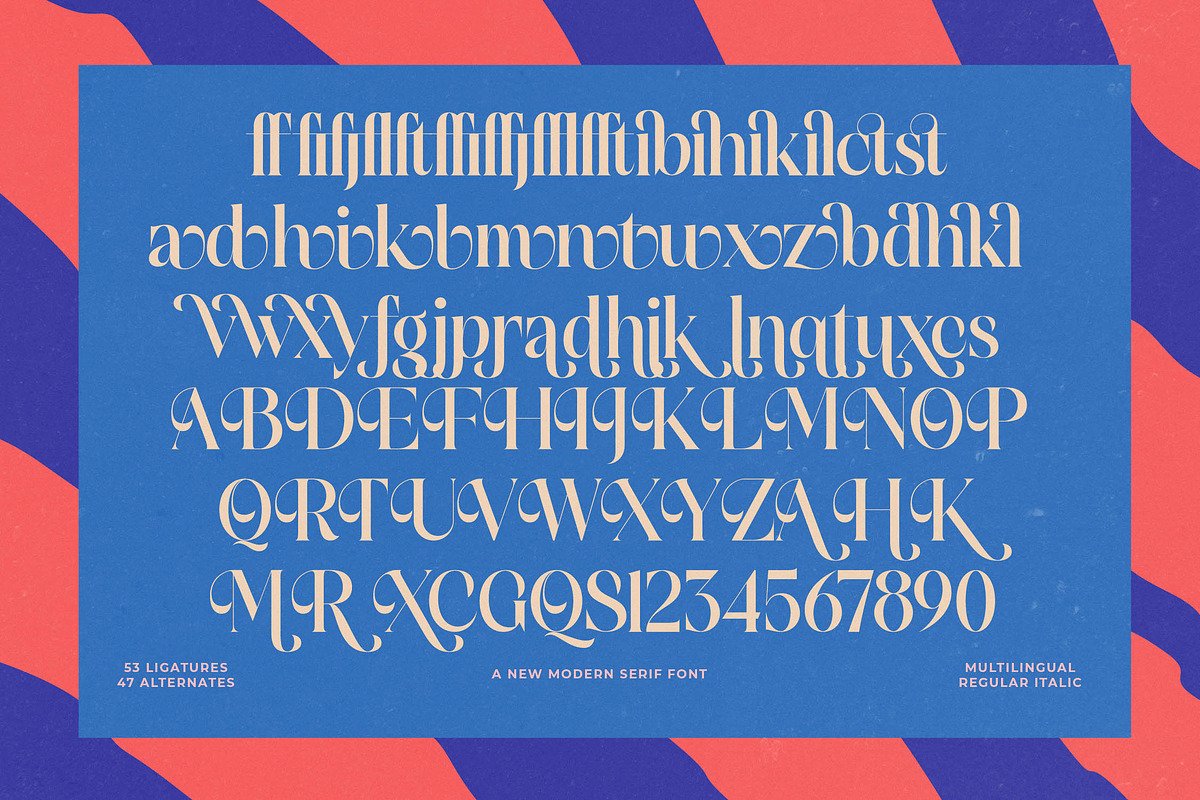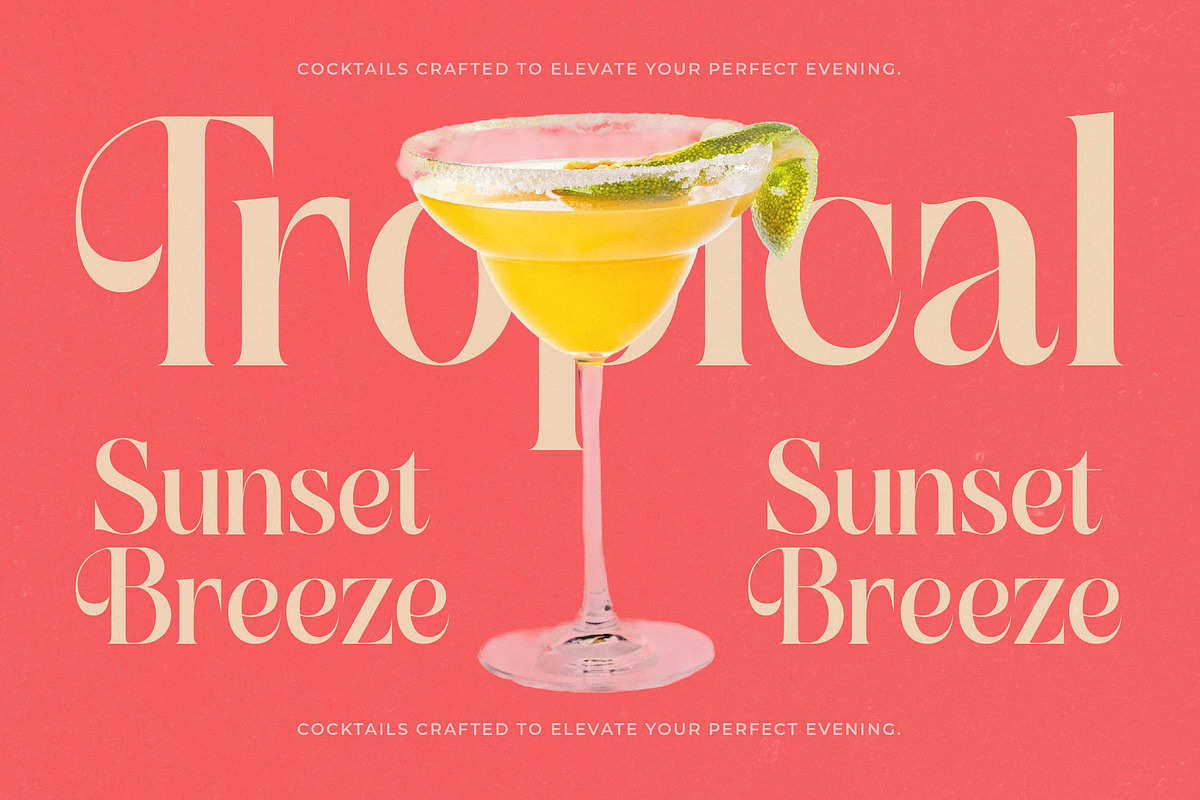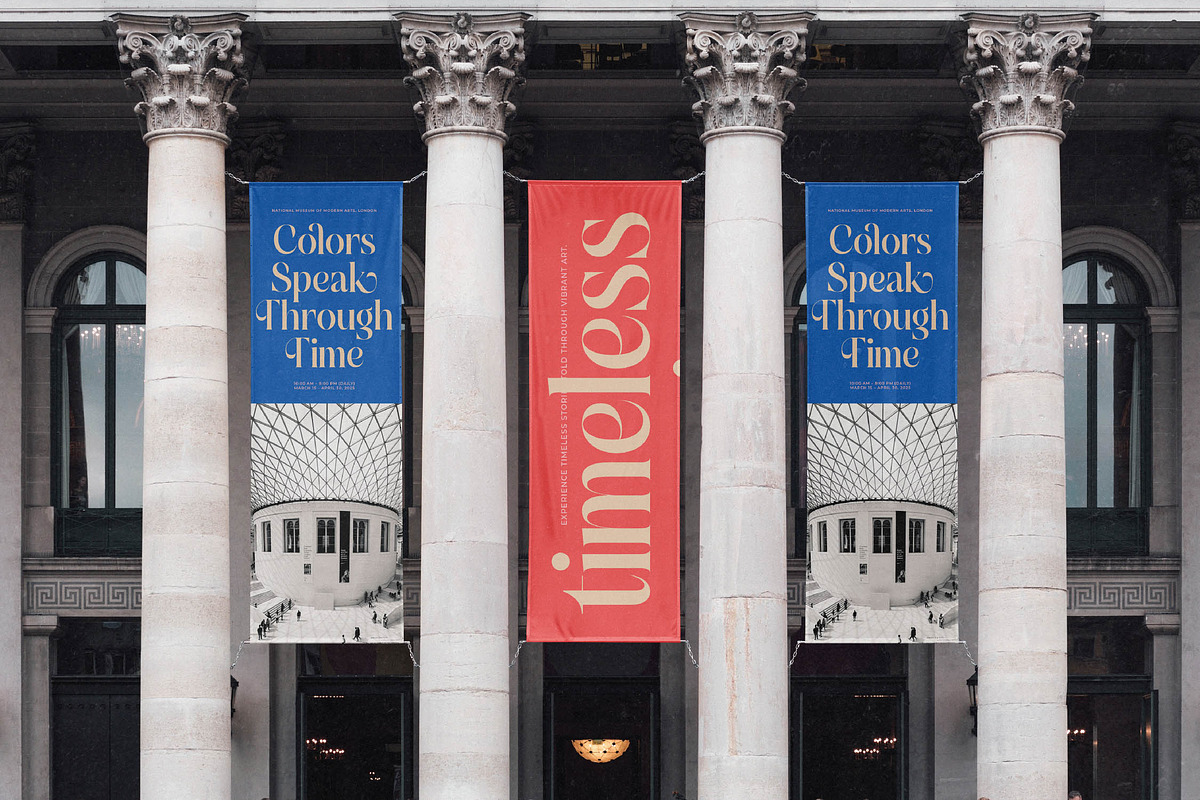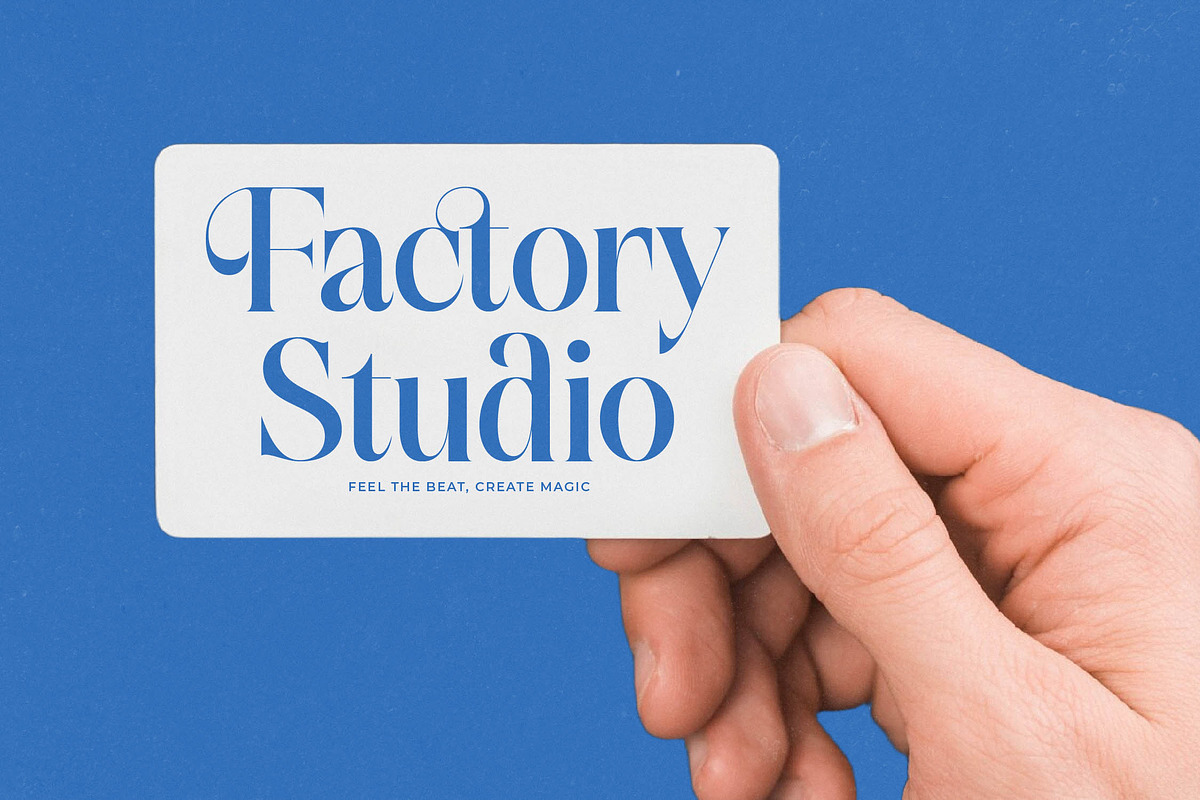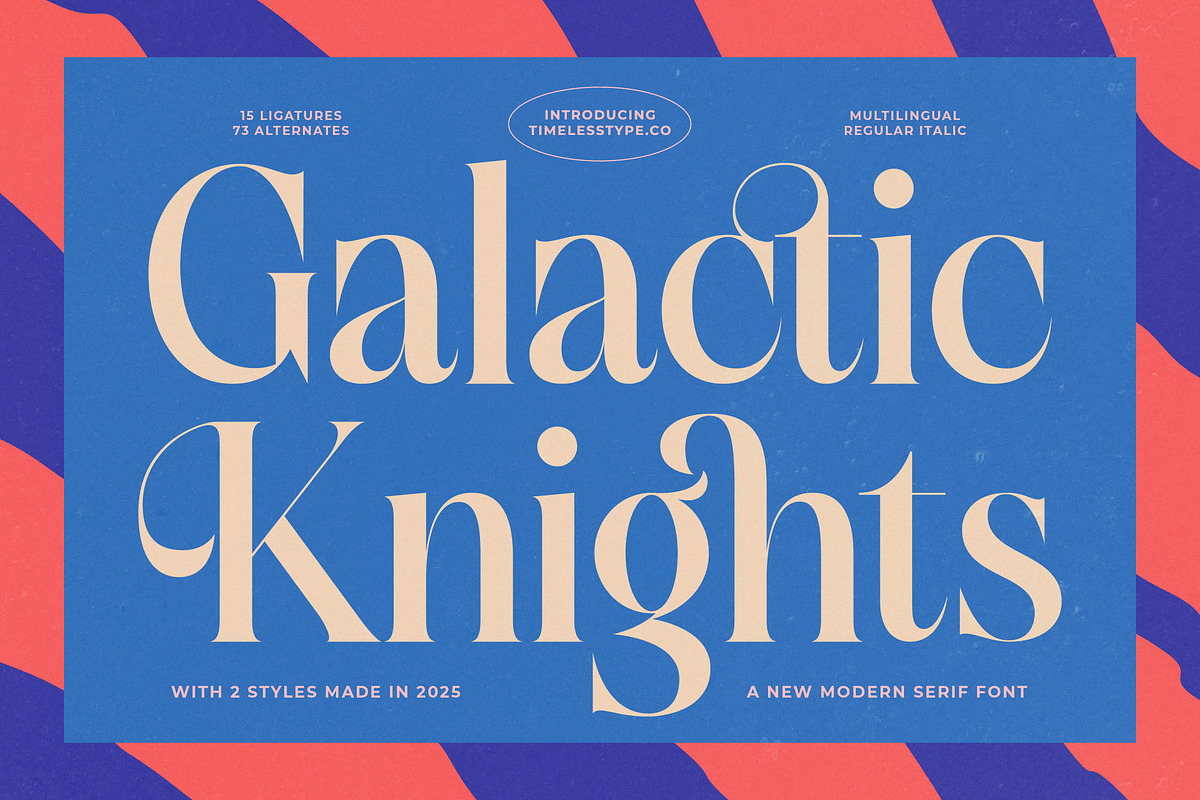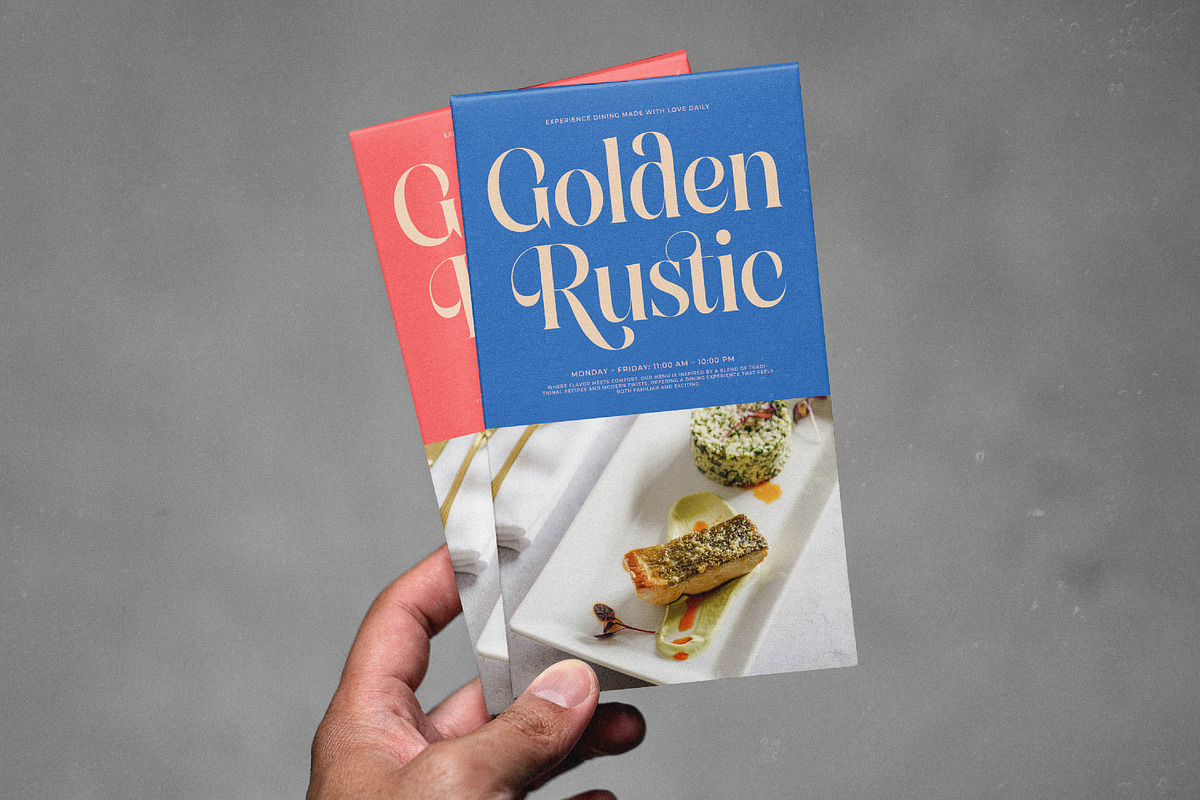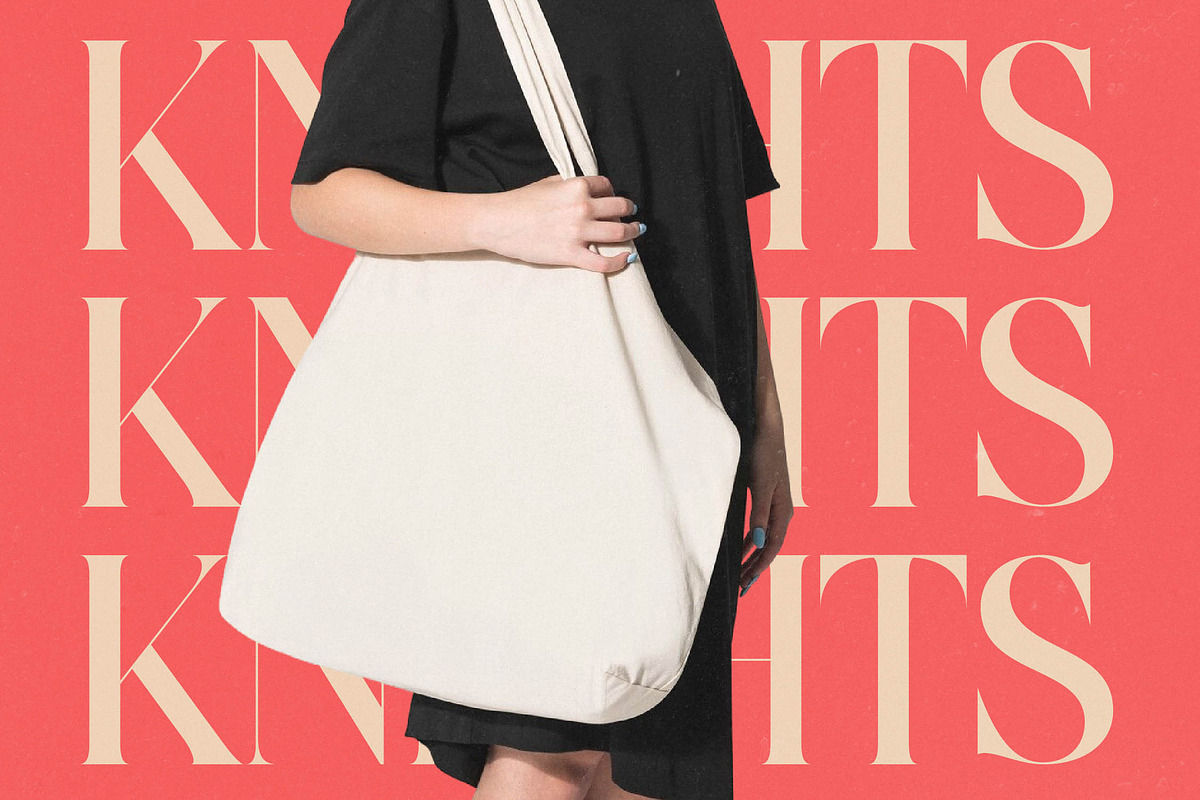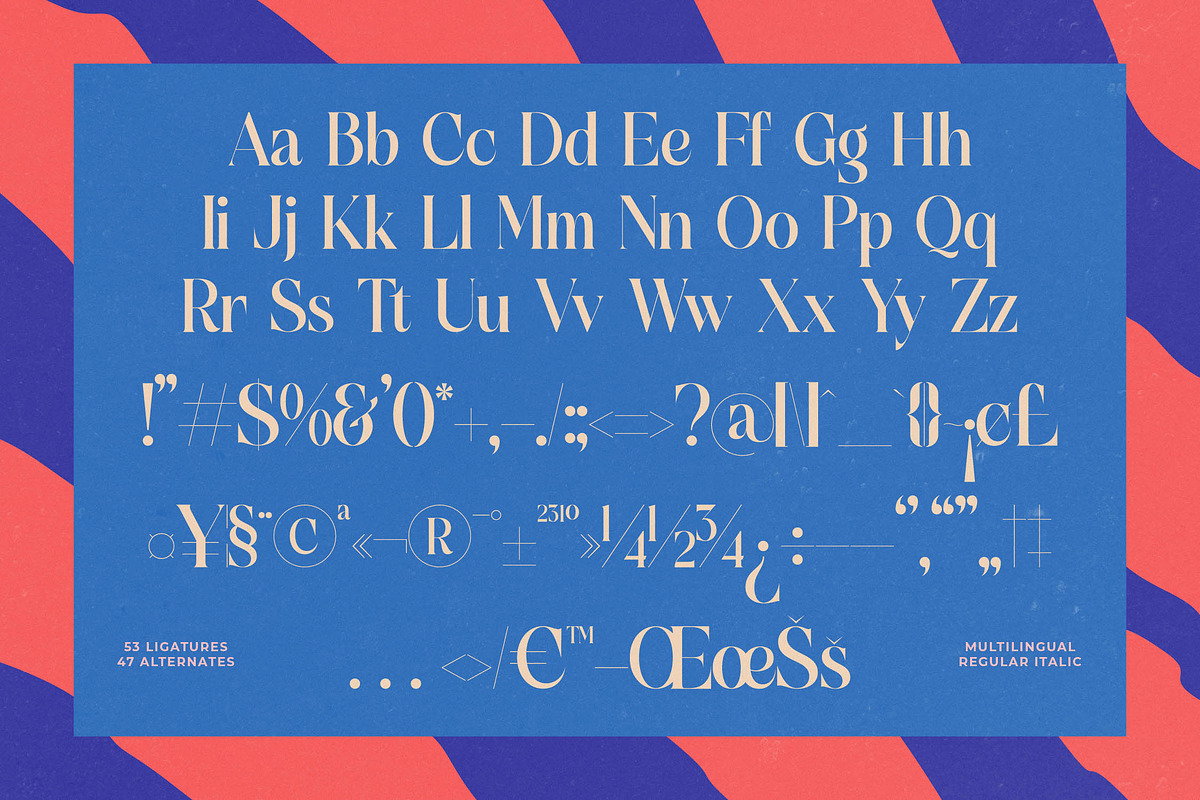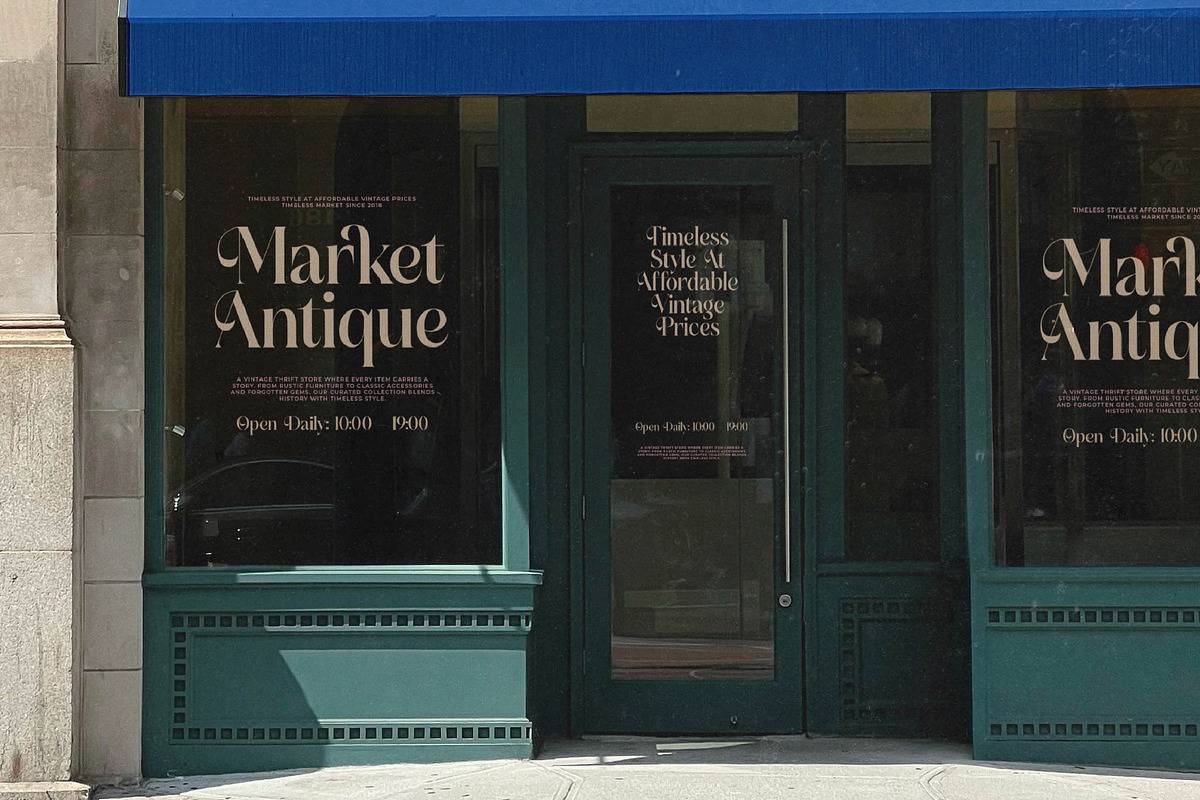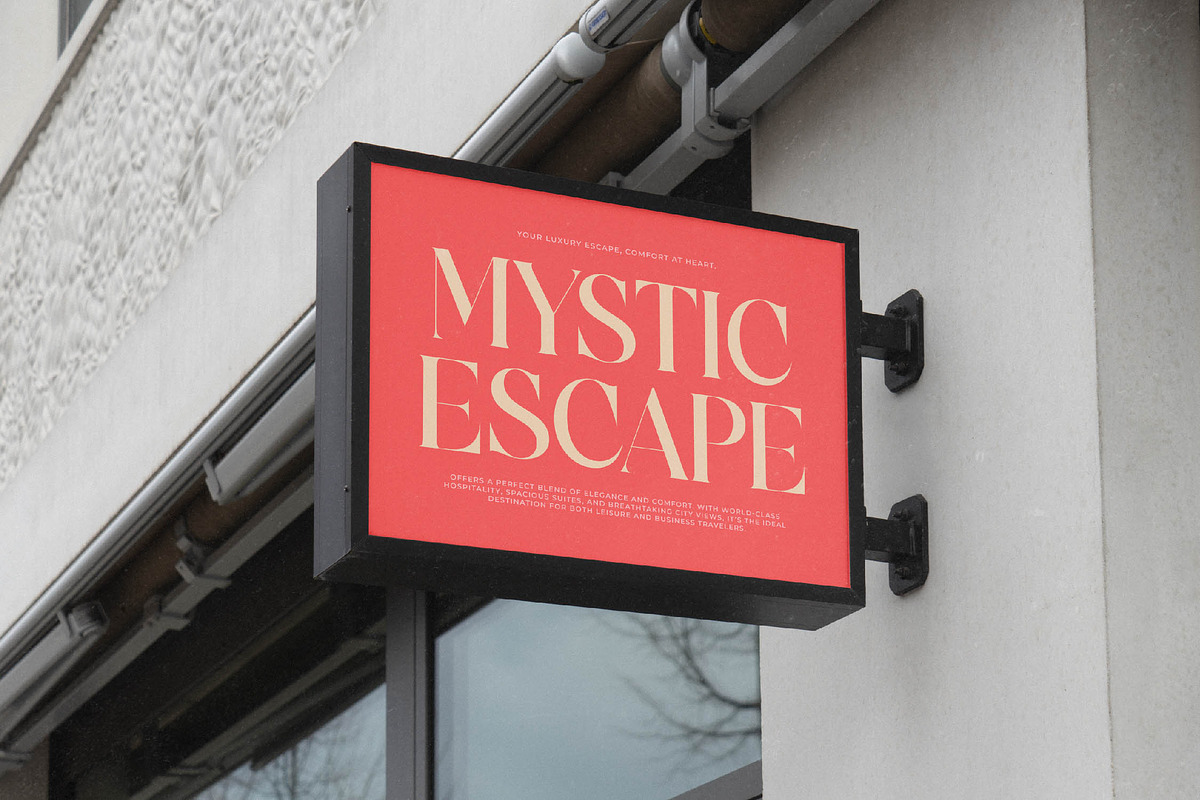
Galactic Knights Modern Serif
Experience the celestial elegance of Galactic Knights, a typeface designed to bridge the gap between classic luxury and futuristic sophistication. Every character is meticulously balanced to provide a visual experience that is both striking and incredibly refined.
Drawing inspiration from the rhythmic flow of mid-century high-fashion mastheads and the sharp clarity of modern celestial maps, this font tells a story of prestige. It captures a unique atmosphere where cosmic mystery meets the grounded authority of timeless editorial design.
This modern serif display is built for designers who demand a high-performance luxury typography tool with a distinct branding impact. Its high-contrast serif anatomy makes it a perfect editorial font, offering sharp hairlines and bold stems that create a stunning visual rhythm on the page.
Riding the wave of the current modern serif trend, this typeface provides the perfect alternative to generic layouts by offering rich, character-driven typography. It stands out among editorial display fonts as a versatile choice for designers looking to infuse their work with personality and contemporary flair.
Perfectly suited for high-end logo design and comprehensive branding systems, the font shines in packaging for luxury goods and avant-garde fashion magazines. Whether used for a minimalist wedding invitation or a complex editorial spread, it maintains its legibility and elite aesthetic.
Take advantage of the extensive OpenType features including 53 ligatures, 47 alternates, and elegant swashes for custom flourishes. With full multilingual support and a wide array of international characters, this font is ready for professional projects across the globe.
- Ligature 15 Alternate 73